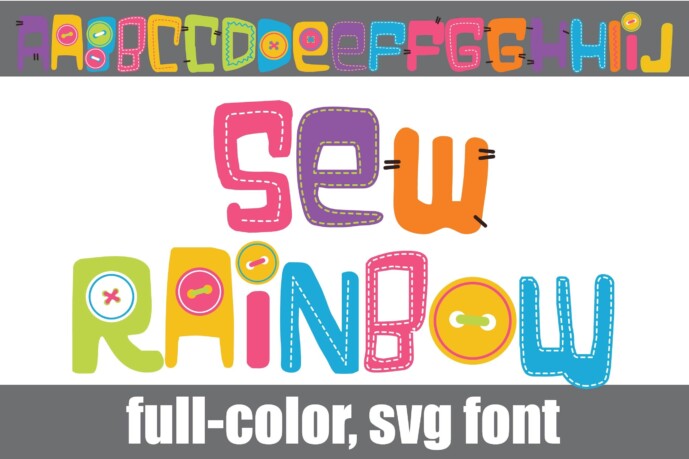
Sew Rainbow Font
This full-color font features a whimsical, crafty font in a rainbow color palette with stitches, buttons, and more. There is an alt case of additional colors of each letter that you can access through your system or Silhouette’s glyph map.